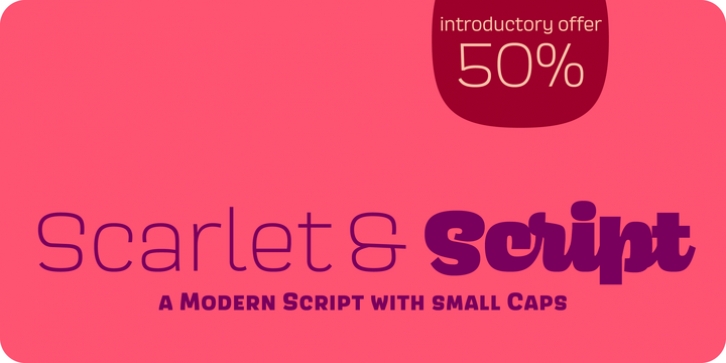
Had Alexander Girard & Aldo Novarese teamed up to design a typeface, Scarlet might have been the result. In his admiration of the graphic language of the 1960s, Jürgen Huber has designed this sans serif typeface with a matching script in 2015/16.
Scarlet comes in 12 styles, Scarlet Script in 7. Both typefaces have small caps and an extended character set to support Western, Central and Eastern European languages. OpenType features help you handle ligatures, old style figures and other glyph sets, in a smart way.
With Scarlet’s warm unique flavor and touch in the design of the stylish and playful sixties, you can feel where it works best, whether in the pages of magazines, on packaging, or on the screen.